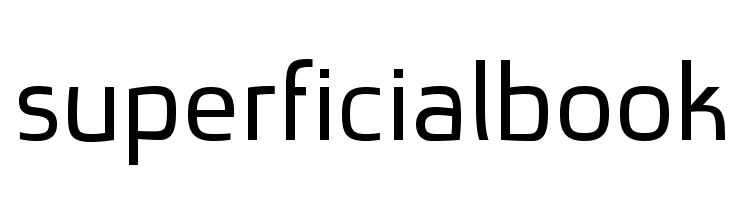
A modern, geometric sans-serif font with excellent readability.
A modern sans-serif font with geometric shapes and uniform strokes.
A modern, geometric font with clean lines and excellent readability.
A clean, modern sans-serif font with excellent readability and balance.
A bold, modern sans-serif font with clean lines and excellent readability.